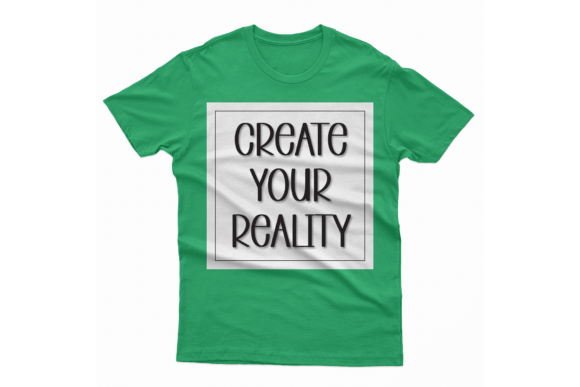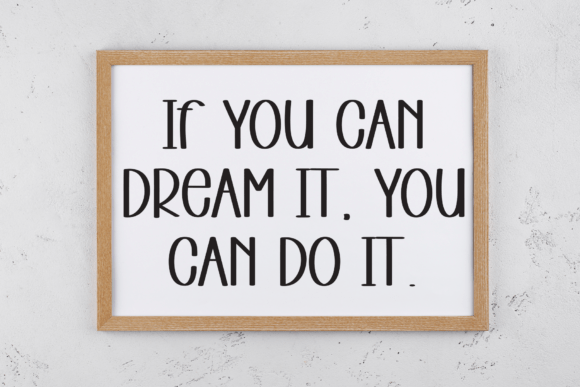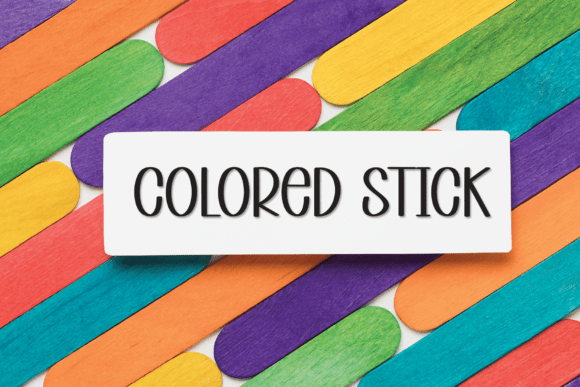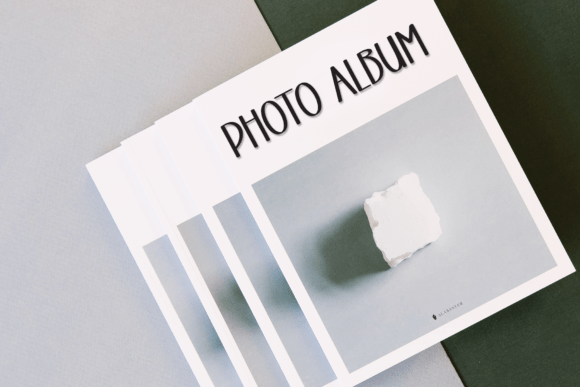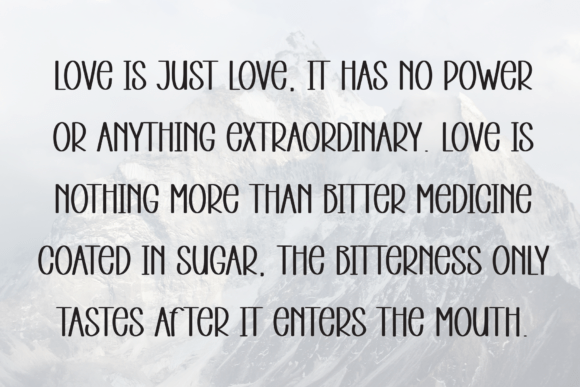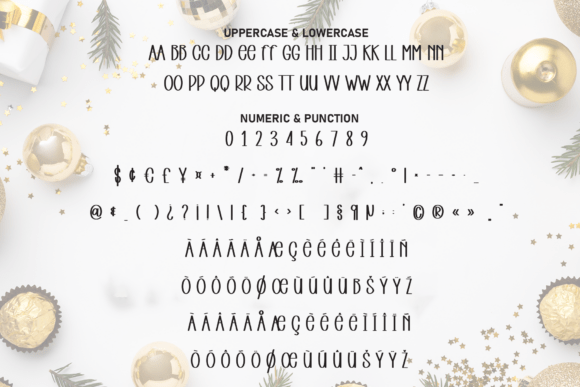
Introducing Happy Christmas Font: Elevate Your Designs with Festive Flair
Are you looking for a special touch to make your holiday designs shine? Look no further than the Happy Christmas Font, a unique and creative addition to your typography collection. Our font is designed to bring a smile to your face and a dash of festive fun to your projects. With its latest style letters, Happy Christmas Font is perfect for a wide range of applications, from wall displays and wedding invitations to social media posts, logos, advertisements, product packaging, and more.
The Happy Christmas Font offers a world of creative possibilities for designers, crafters, and DIY enthusiasts. Imagine being able to add a personal touch to your:
- Wall displays and signage
- Wedding invitations and party decor
- Social media posts and logos
- Advertisements and marketing materials
- Product packaging and design
- Labels and branding
- Photography and watermarks
- Invitations and stationery
- Any project that requires a touch of handwriting elegance
Why Choose Happy Christmas Font?
Our font is designed to provide an extraordinary experience for designers and crafters. With Happy Christmas Font, you’ll enjoy:
- A unique and festive typography style
- A high-quality font that will elevate your designs
To get the most out of Happy Christmas Font, try experimenting with different design combinations and ideas. Here are a few tips to get you started:
- Pair Happy Christmas Font with other festive fonts for a unique look
- Use the font to create eye-catching social media posts and graphics
- Add a personal touch to your wedding invitations and party decor
- Experiment with different colors and textures to match your brand or design style